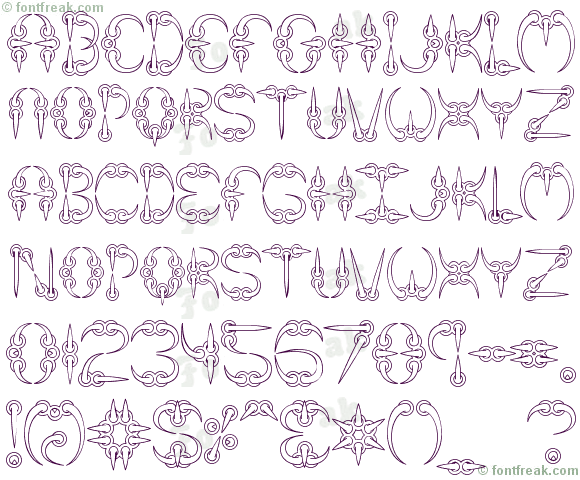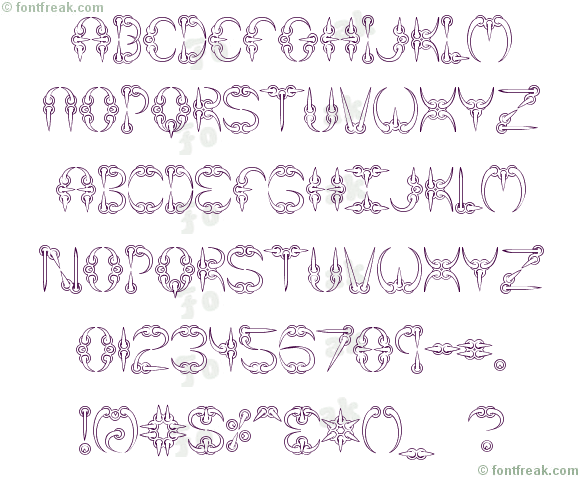
CLAW 1 -BRK-
CLAW 2 -BRK-
About Claw
The Claw font by Ænigma Fonts is a decorative typeface that exudes a unique and artistic flair, making it an excellent choice for various creative projects. This font features intricate, swirling forms with a notable emphasis on decorative elements. Its stroke weight varies, providing an engaging visual contrast that draws the eye and adds depth to any text. The generous spacing between characters enhances readability while maintaining an artistic touch, making it suitable for both display and text applications.
Claw's whimsical and ornate design makes it ideal for a range of uses. It can elevate wedding invitations, providing an elegant yet playful touch that captures the joy of the occasion. Additionally, it works beautifully for movie posters, where its distinctive style can help convey the film's genre or theme. Restaurant menus can also benefit from Claw's eye-catching aesthetics, making dishes more appealing to diners. Furthermore, content creators looking to add a creative edge to their social media graphics or branding will find this font to be an inspiring choice.
In a crowded market of fonts, Claw stands out due to its intricate design and versatility. Its ability to blend elegance with a touch of whimsy makes it not only visually appealing but also functional for various creative endeavors. Whether you're designing for a special event or enhancing your brand's identity, Claw is sure to leave a lasting impression.